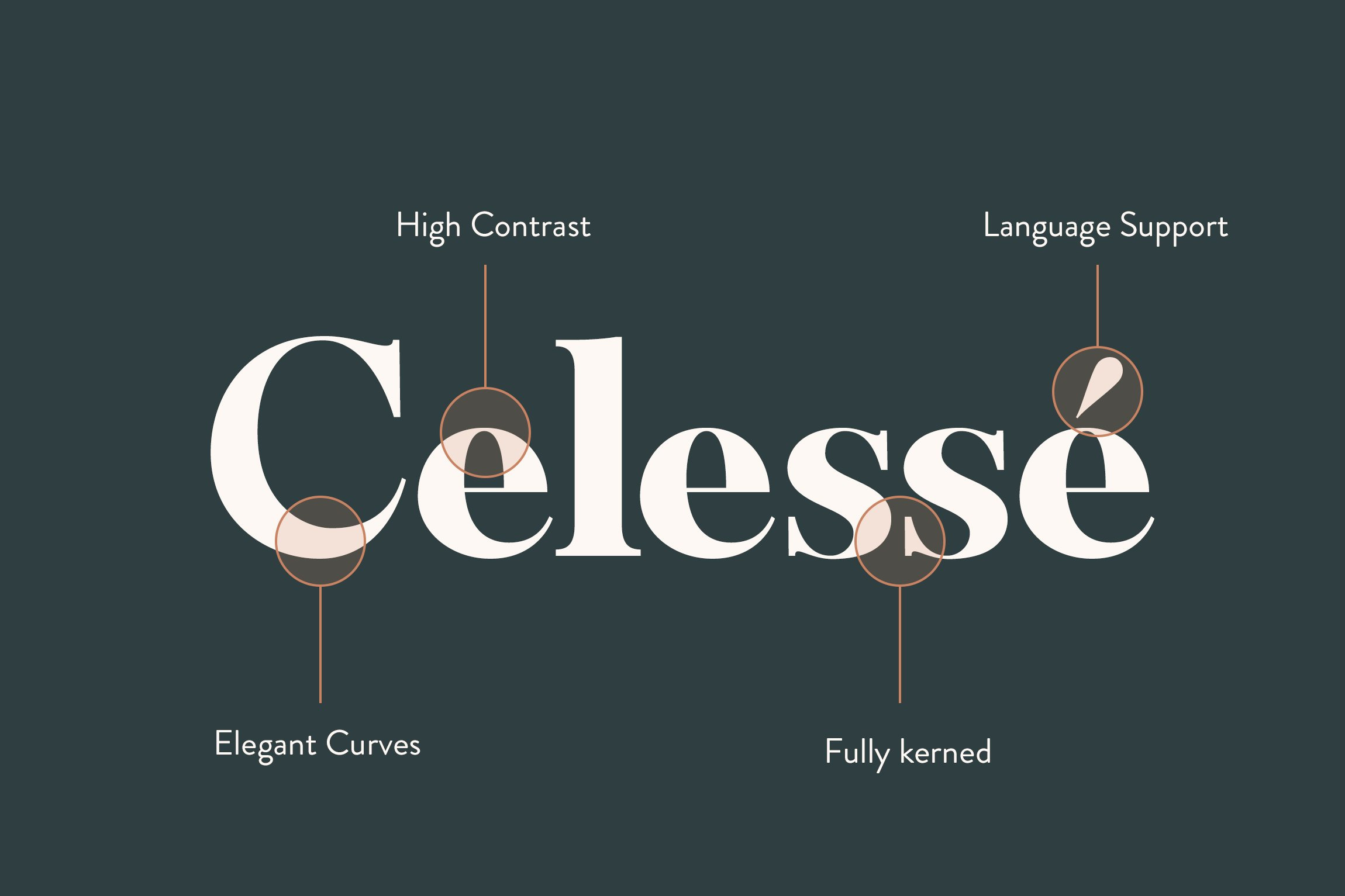
Celesse - Classic Font + Logos
Pour yourself a glass of your finest wine and get classy with Celesse. This font is great for designing elegant logos, quotes, magazine covers, wedding cards, invitations, and brandings. Its stark contrasting lines are best used in headlines and projects with big type. Celesse adds timeless beauty, heavenly curves and a classic appearance to any project.